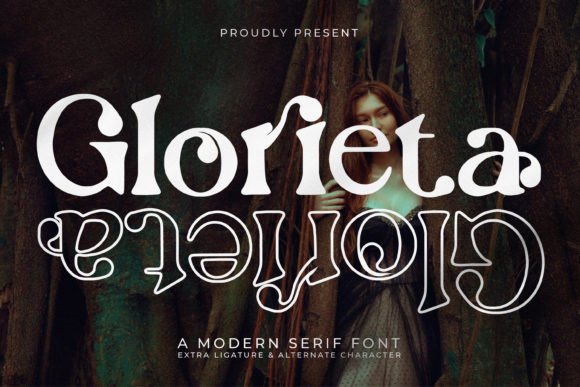
Glorieta Font: Elevate Your Designs with Elegance and Sophistication
In the realm of typography, few fonts manage to convey the essence of classic beauty and sophistication as effectively as Glorieta. This charming serif typeface has been designed to bring an air of elegance to various design projects, including headlines, branding, and editorial designs. With its distinctive letterforms, graceful serifs, and refined strokes, Glorieta is poised to add a touch of timeless allure to any project.
What is Glorieta Font?
Glorieta is a meticulously crafted serif typeface that stands out for its unique blend of traditional and modern elements. Its design is characterized by exquisite detailing, which sets it apart from more conventional fonts. The font’s creator aimed to produce a typeface that would not only pay homage to classic serif fonts but also introduce a fresh, sophisticated look that could enhance the visual appeal of various design projects.
Key Features of Glorieta Font
- Distinctive Letterforms: Each letter in Glorieta has been carefully designed to contribute to the font’s overall elegance. The characters are not just aesthetically pleasing on their own but also work harmoniously together, creating a cohesive and luxurious feel.
- Graceful Serifs: The serifs in Glorieta are gracefully designed, adding to the font’s classic appeal. These serifs are not overly ornate but possess a subtle sophistication that enhances the readability and beauty of the text.
- Refined Strokes: The strokes in Glorieta are refined and well-proportioned, contributing to the font’s sophisticated appearance. This refinement ensures that the text appears elegant and high-end, making it suitable for premium brands and editorial content.
Ideal Applications for Glorieta Font
Glorieta’s versatile design makes it suitable for a wide range of applications. Here are some of the ideal uses for this elegant serif typeface:
Headlines
Glorieta’s distinctive and elegant design makes it an excellent choice for headlines. Whether you’re working on a magazine, newspaper, or website, Glorieta can help you create headlines that capture attention and convey a sense of sophistication.
Branding
For brands aiming to establish a luxurious and high-end image, Glorieta offers a typographic solution that aligns with these aspirations. Its classic beauty and refined strokes can enhance brand identity materials, including logos, packaging, and marketing collateral.
Editorial Designs
In editorial design, the right typography can significantly enhance the reader’s experience. Glorieta, with its elegant serifs and refined strokes, is well-suited for editorial projects such as books, magazines, and journals. It brings a level of sophistication and classic appeal that can elevate the overall design.
Benefits of Using Glorieta Font
Choosing Glorieta for your design projects comes with several benefits:
- Timeless Appeal: Glorieta’s classic design ensures that it remains relevant and stylish for years to come, providing a timeless appeal that is hard to achieve with trend-based typography.
- Versatility: Despite its strong association with luxury and sophistication, Glorieta is versatile enough to be used across various design projects, from digital content to print materials.
- Enhanced Readability: The well-thought-out design of Glorieta, including its serifs and stroke widths, contributes to excellent readability, making it suitable for both headings and body text.
In conclusion, Glorieta font is a beautiful addition to the world of typography, offering a unique blend of elegance, sophistication, and classic beauty. Its distinctive letterforms, graceful serifs, and refined strokes make it an ideal choice for designers looking to add a touch of luxury to their projects. Whether you’re working on headlines, branding, or editorial designs, Glorieta is sure to elevate your work and provide a timeless appeal that stands out in the world of design.
Embracing Elegance with Glorieta
As designers, we continually seek typography that not only communicates our message effectively but also resonates with our audience on an aesthetic level. Glorieta font, with its charming serif design and sophisticated feel, is more than just a typeface—it is a design statement. By incorporating Glorieta into your projects, you’re not just choosing a font; you’re embracing a legacy of elegance and sophistication that can redefine the visual identity of your work.